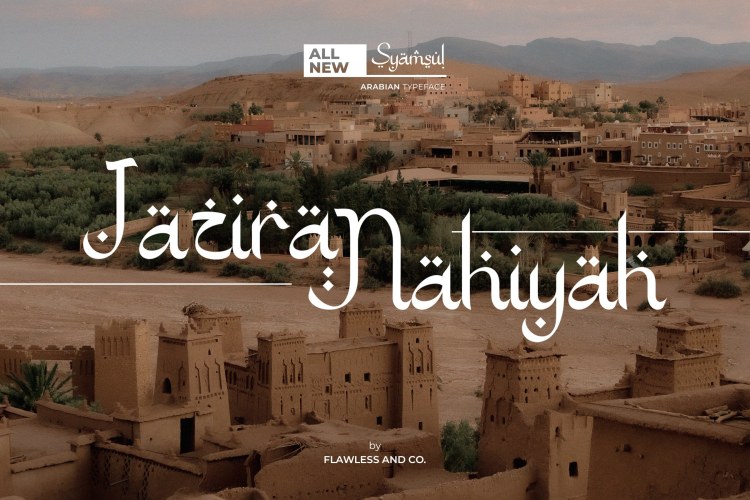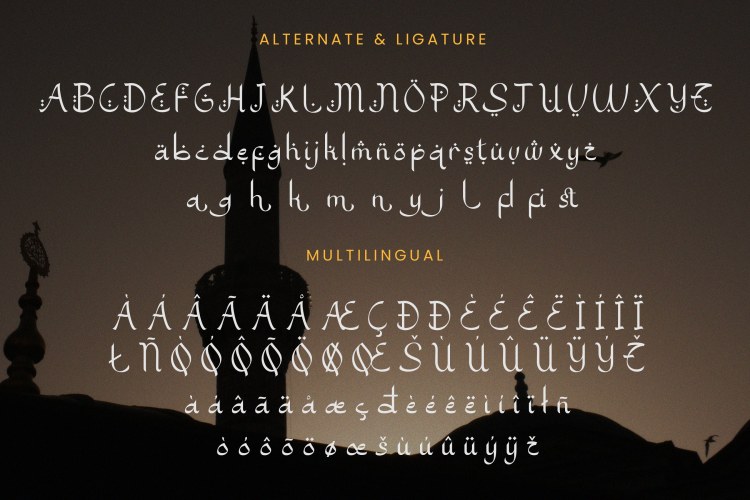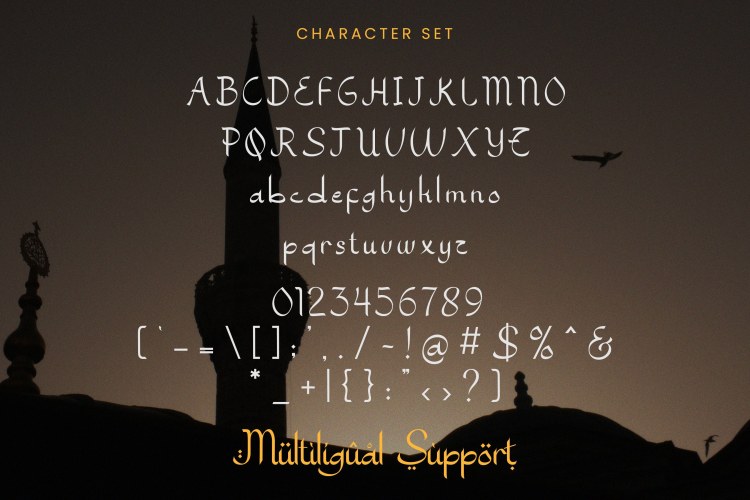
Syamsul – Arabic Style Font
Introducing “Syamsul” – an exquisite Arabic-style font that combines elegance and functionality. Inspired by the beauty of Arabic calligraphy, Syamsul captures the essence of this ancient art form while offering a contemporary twist. There’s some connected letters and some alternates that suitable for any graphic designs such as branding materials, t-shirt, print, business cards, logo, poster, t-shirt, photography, quotes .etc This font support for some multilingual. Also contains uppercase A-Z and lowercase a-z, alternate character, numbers 0-9, and some punctuation.
Where Syamsul – Arabic Style Font works best
Syamsul – Arabic Style Font is built for size: event posters, hero headlines and billboard-style layouts.
High contrast display type like Syamsul – Arabic Style Font reads instantly in thumbnails and motion graphics.
What is Syamsul – Arabic Style Font good for?
Syamsul – Arabic Style Font is a Display Fonts typeface tagged Branding, Calligraphy, Contemporary, Display. It works well for headlines, logos, posters, social media graphics and branding projects that need a distinctive display fonts look.